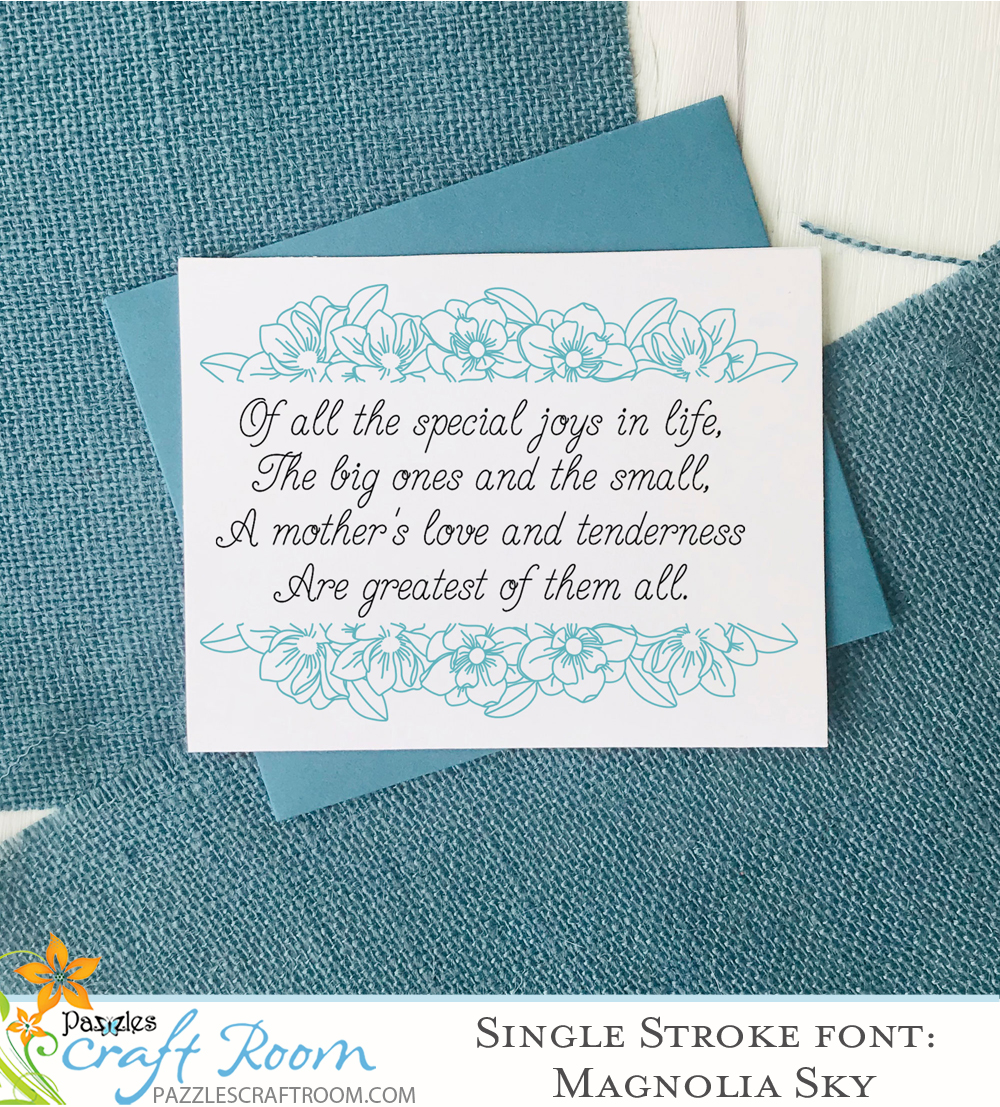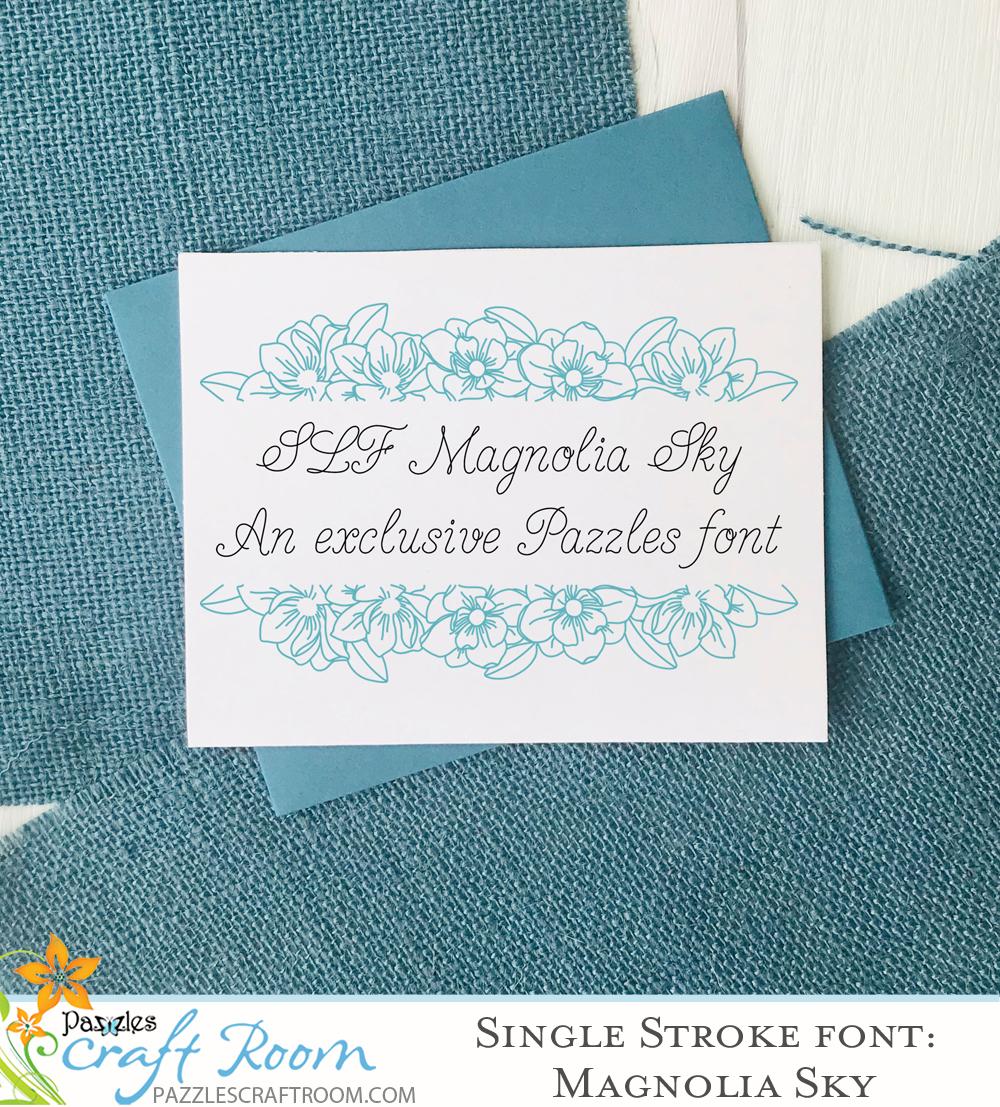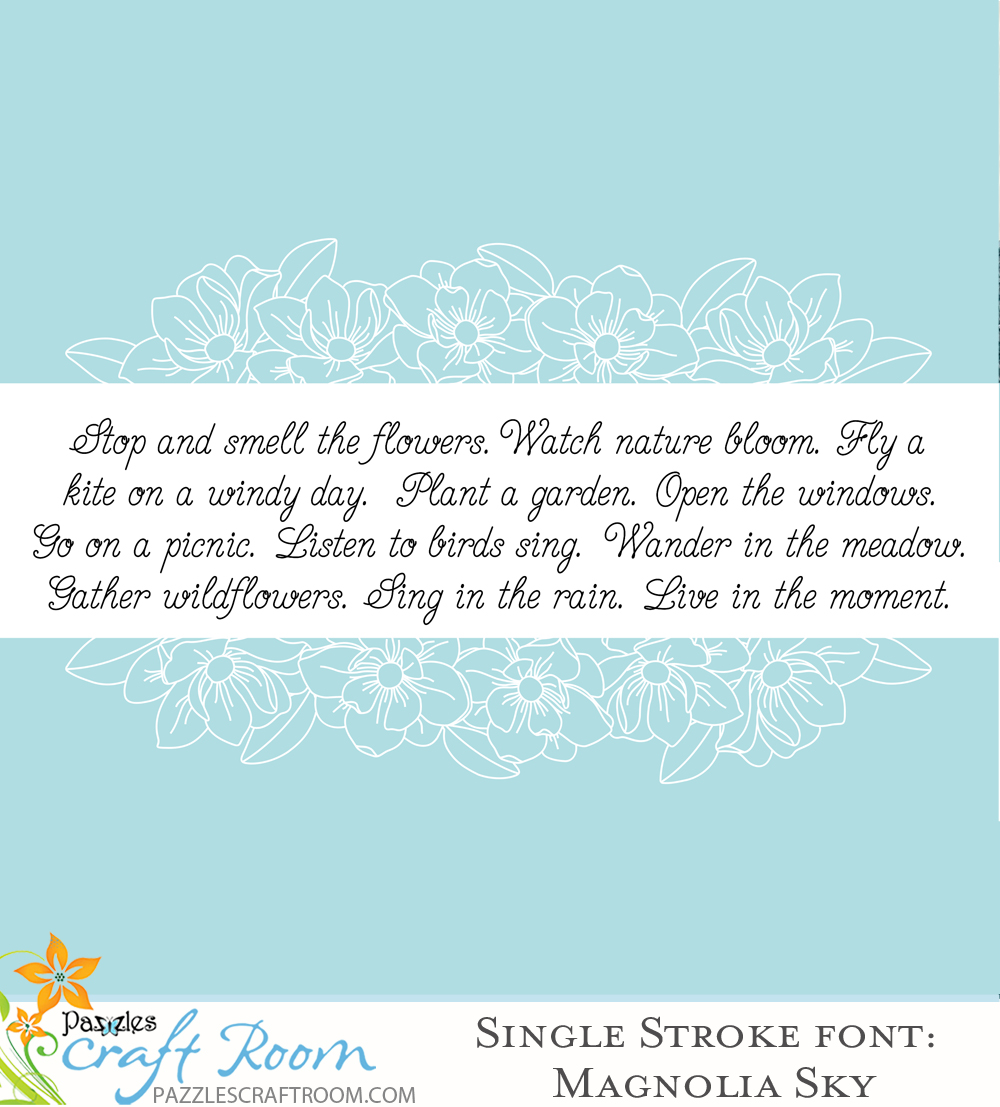
As you may know, I’ve been absolutely nuts for single line fonts since Christine from here at Pazzles introduced me to them years ago.
Those were just for Inspiration Pro, however, and they had their limitations. So I was super excited when I learned how to make them in a way that goes in InVue software recently. I’ve created one that is exclusively for Pazzles, and you can only get it here.
I also made a companion single line file that has a hand drawn border of magnolia leaves. I hope you enjoy these as much as I enjoyed creating them for you! And most of all, I can’t wait to see your creations using them.